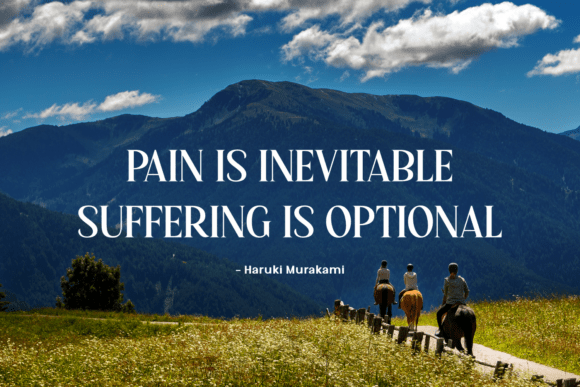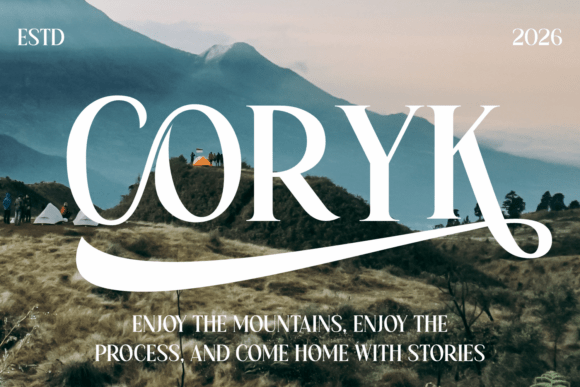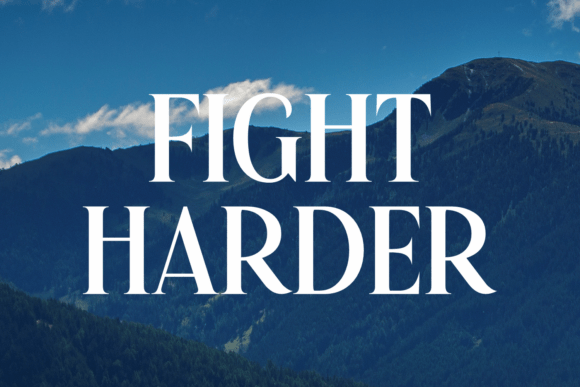
Introduction to Oscor Font
Have you ever stumbled upon a beautifully designed project that immediately sparks your creative energy? For designers, finding the perfect font can be the difference between a mediocre and a stunning design. As I recall a recent project where I was tasked with creating a wedding invitation, I fell in love with the elegance of Oscor Font. Its fluid, calligraphy-inspired design effortlessly blended classic and modern aesthetics, making it the perfect choice for the job.
Oscor Font is more than just a luxury font set – it’s a design resource that elevates any creative project. With its high-quality, transparent background, and sleek design, it’s a must-have for designers who want to add a touch of sophistication to their work. Whether you’re working on a fashion magazine layout or a boutique display, Oscor Font is sure to impress. And the best part? It’s available for free download, making it an invaluable asset for any designer.
As a designer, you understand the importance of having a versatile font that can adapt to any design need. Oscor Font delivers just that – a classy serif that exudes modern sophistication, while its charming alternates add a dash of vintage charm. Whether you’re working on a high-end fashion project or a casual social media post, Oscor Font is the perfect choice to elevate your design game.
Oscor Font
- Unique characteristics: elegant, modern, and sophisticated design style
- Suitable for use in a variety of creative projects, including logos, graphics, and typography-based designs
Honest Review: Oscor Font
I recently had the chance to work with Oscor Font for a creative project and I must say, it’s been a game-changer. This high-quality font is a fantastic design resource for any project that requires a modern and sleek aesthetic.
Here are some of the things that work well with Oscor Font:
- ✨ Beautiful typography: Oscor Font offers a unique blend of elegance and sophistication, making it perfect for creative projects that require a touch of class.
- ✨ Versatility: The font is available in multiple weights, making it easy to use in a variety of design scenarios.
While Oscor Font is an excellent design resource, there are a few limitations to be aware of:
- ⚠️ Limited customization options: While the font is available in multiple weights, customization options are limited, which may not be ideal for designers who want to push the boundaries of design.
- ⚠️ Not suitable for all design projects: Oscor Font may not be the best choice for projects that require a more playful or whimsical aesthetic.
Overall, I’m impressed with Oscor Font and would highly recommend it to designers looking for a high-quality font that’s easy to use and versatile. With its beautiful typography, free download, and modern aesthetic, it’s a must-have design resource for any creative project.
Oscor Font
Tips for Getting the Most Out of Oscor Font
To get the most out of Oscor Font, use it on a transparent background to make your designs stand out. You can also use it in combination with other high-quality design resources to create unique and creative projects.
Oscor Font is commonly used in graphic design, digital art, and creative projects. It’s a versatile font that can be used in a variety of contexts, from branding and marketing materials to web design and print materials.